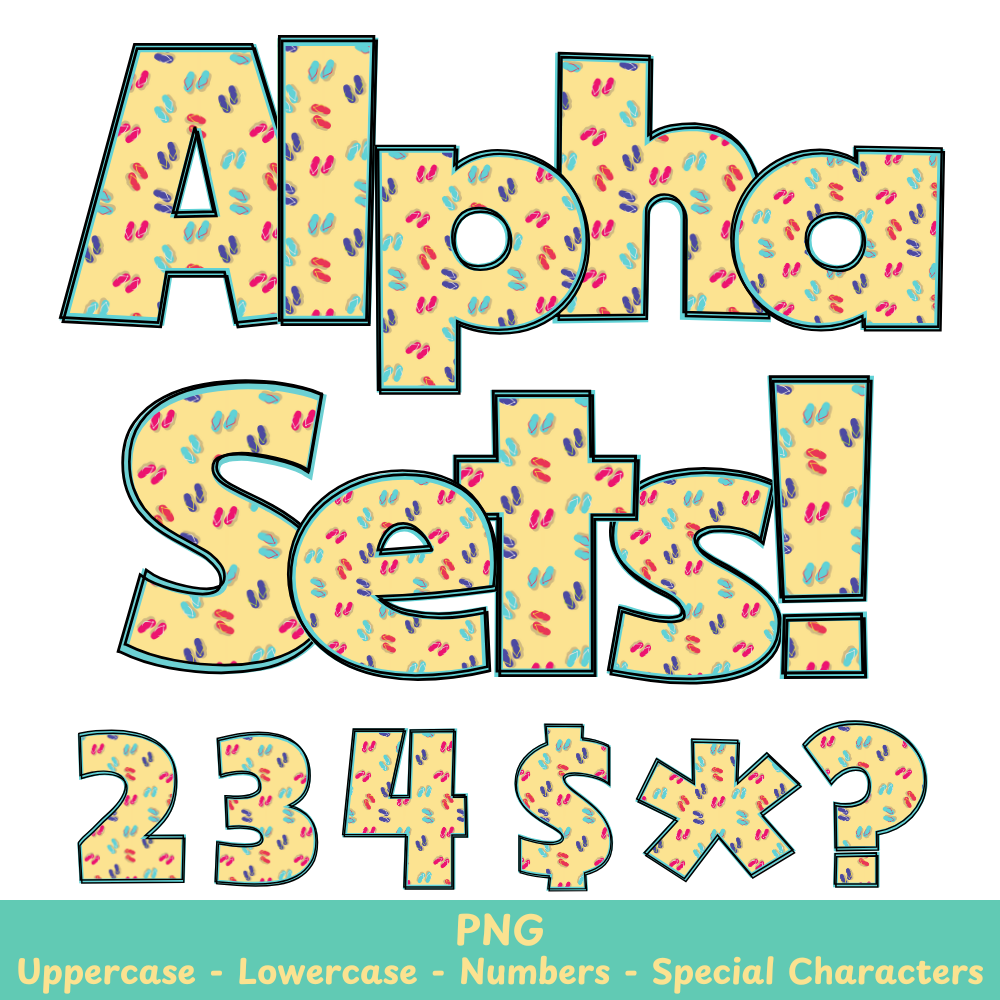
Flip Flops Tropical PNG Font
Flip Flops Tropical Alpha Set PNG Font Pack
This Flip Flops Tropical PNG Font is perfect for adding a touch of summer to any project. Crafters and sublimation artists alike will appreciate the detailed design and versatility of this font. Use it in a variety of applications to add a tropical twist to your creations.